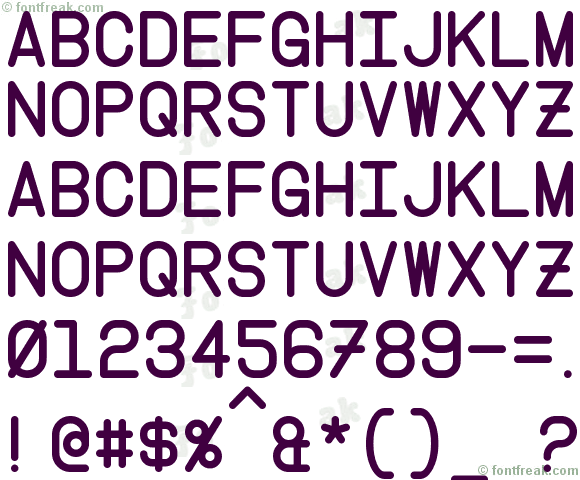
Instruction
About Instruction
The Instruction font, created by Neale Davidson in 2012, is a striking sans-serif typeface that combines modern aesthetics with functional design. Its bold and geometric letterforms exude a sense of clarity and precision, making it an excellent choice for various applications. The font features a consistent stroke weight, which contributes to its clean and approachable look. The spacing between characters is well-balanced, allowing for easy readability while maintaining a contemporary vibe.
Instruction stands out visually with its minimalistic design, lacking excessive decorative elements, which enhances its versatility. This makes it ideal for use in a range of projects, including restaurant menus where readability and style are crucial, as well as movie posters that require a bold, eye-catching typography. Additionally, it works well for branding materials, such as logos and business cards, providing a professional appearance that resonates with target audiences. Graphic designers and small business owners alike will find this font particularly appealing for creating impactful marketing materials.
Content creators can also leverage the Instruction font for editorial layouts, ensuring that their text is not only engaging but also easy to navigate. The understated elegance of this typeface allows it to blend seamlessly into various design contexts while retaining its unique character.